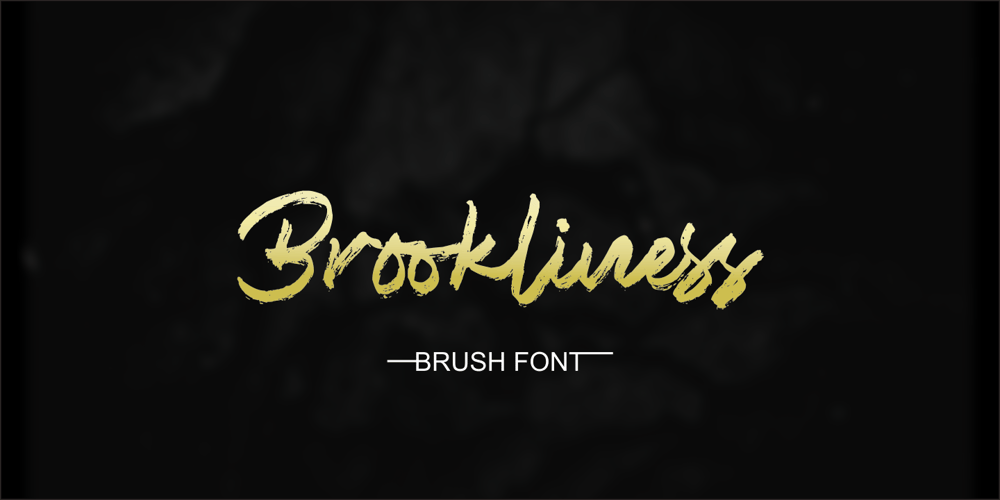
Brookliness Font Family was designed by Zamjump and published by Zamjump. Brookliness contains 1 styles and family package options. Brookliness is tnatural and unique style makes it incredibly fitting to a large pool of designs a casual handwritten brush fon which will make it easier for you to upgrade various design projects to the highest level, be it branding, headings, banner designs, logos, labels, and more! included uppercase and lowercase, multi language, ligature,